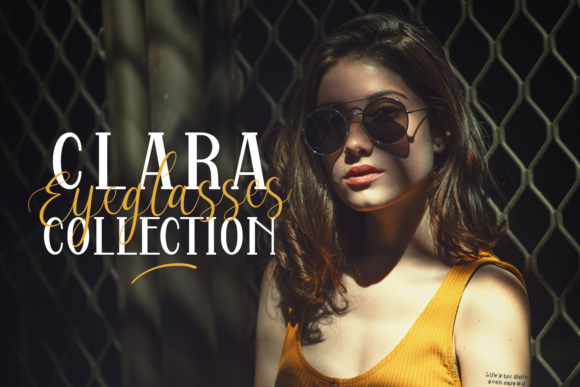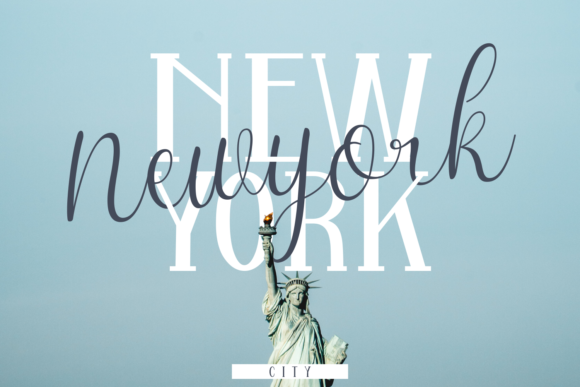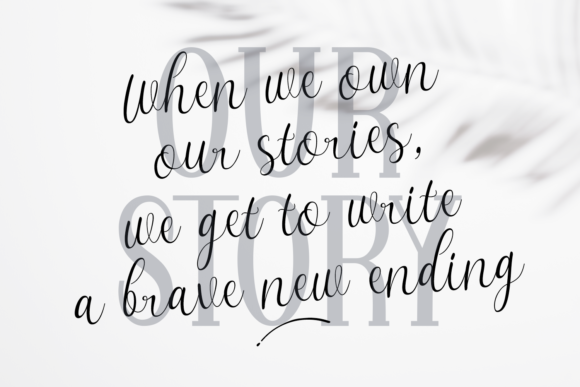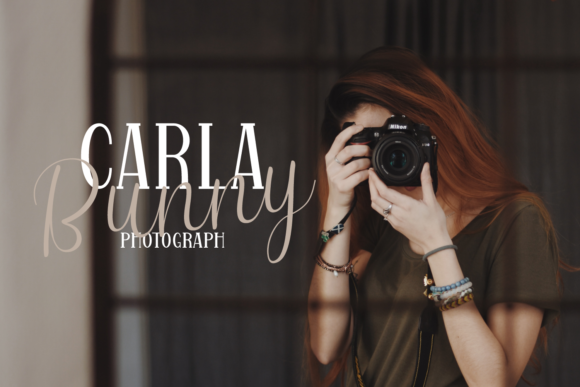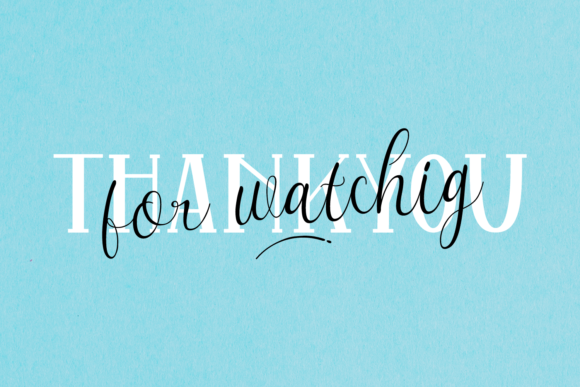
Introduction to Hello Marsmallow Duo Font
Have you ever stared at a blank canvas, searching for the perfect font to bring your creative project to life? That’s exactly where I found myself last week, surrounded by endless design options and a dash of inspiration. I was browsing through a collection of fonts, when I stumbled upon the Hello Marsmallow Duo Font – and it was love at first sight!
As I delved deeper into the world of this sweet and cool font duo, I discovered a unique style that effortlessly combines high-quality design with a modern twist. With its transparent background and free download option, the Hello Marsmallow Duo Font has become a valuable resource for designers, offering endless possibilities for creative projects.
Whether you’re working on a branding project or a social media campaign, this design resource is sure to elevate your work and leave a lasting impression on your audience.
Key Features of Hello Marsmallow Duo Font
- Unique, hand-drawn design with a touch of whimsy, perfect for creative projects and design resources.
- High-quality font with transparent background, ideal for use on various design elements, including logos and graphics.
- Comes in two font styles, Duo and Regular, allowing for versatility in your design projects.
Honest Review: Hello Marsmallow Duo Font
I recently stumbled upon the Hello Marsmallow Duo Font while searching for a unique design resource to elevate my creative project. The free download caught my attention, and I was eager to see if it would live up to its promise.
Upon using the font, I was pleased to find that it offers a high quality, transparent background that can easily be applied to various design elements. The font itself is quite versatile, making it suitable for a wide range of creative projects, from digital art to print materials.
- High quality design: The font is well-crafted and visually appealing.
- Transparent background: This feature makes it easy to apply the font to any design element.
- Limited character set: The font only includes a limited number of characters, which may not be suitable for all design projects.
- Not suitable for small text: The font may not be legible when used for small text sizes.
Overall, I would say that the Hello Marsmallow Duo Font is a great addition to any designer’s toolkit, but it’s not without its limitations. With a little creativity, it can be a valuable resource for your next design project.
The Hello Marsmallow Duo Font is suitable for various creative projects, including logos, posters, business cards, and social media graphics. It’s also a great choice for designers who want to add a touch of elegance and sophistication to their designs.
Q: What makes the Hello Marsmallow Duo Font a high-quality design resource?
The Hello Marsmallow Duo Font is designed with precision and care, ensuring a high level of quality and consistency. Our font features a clean and modern design, making it an ideal choice for a wide range of creative projects. With its high-quality design, the Hello Marsmallow Duo Font is a valuable addition to any designer’s toolkit.